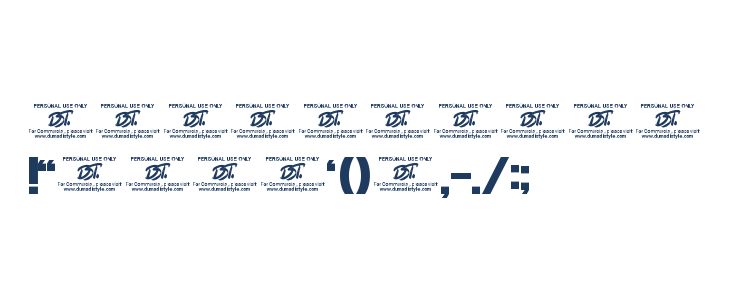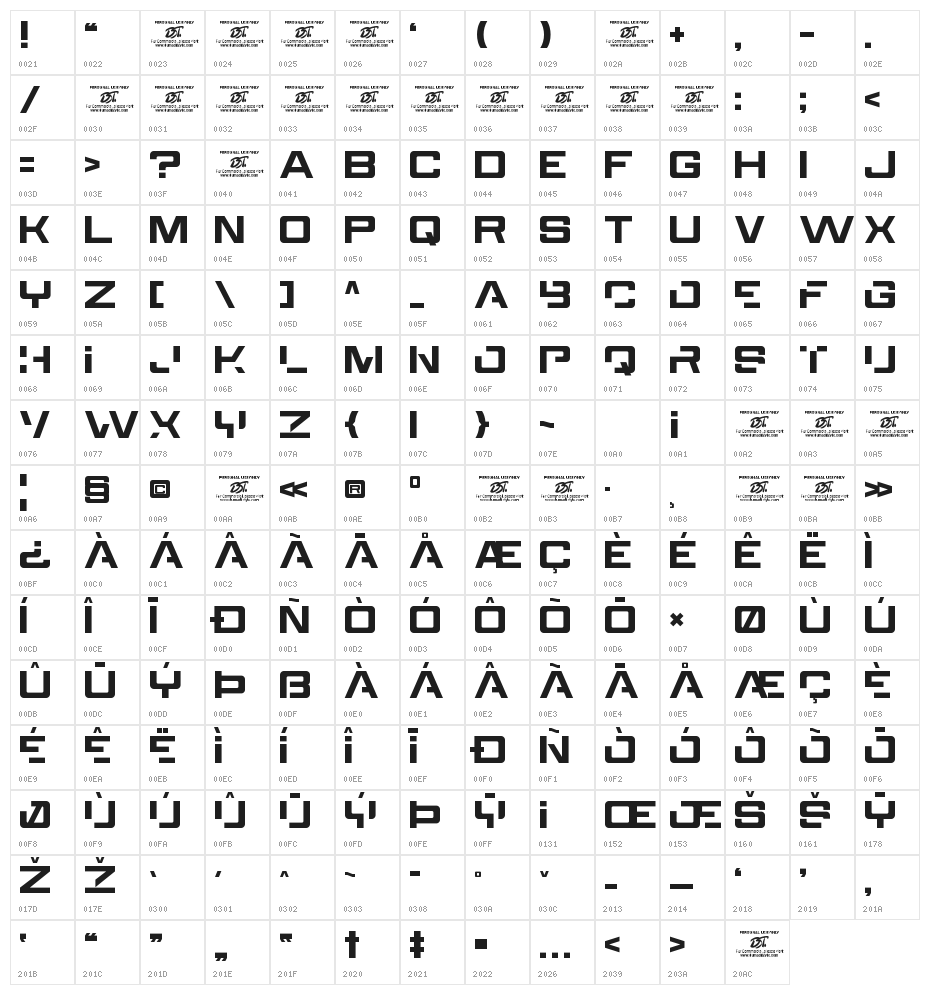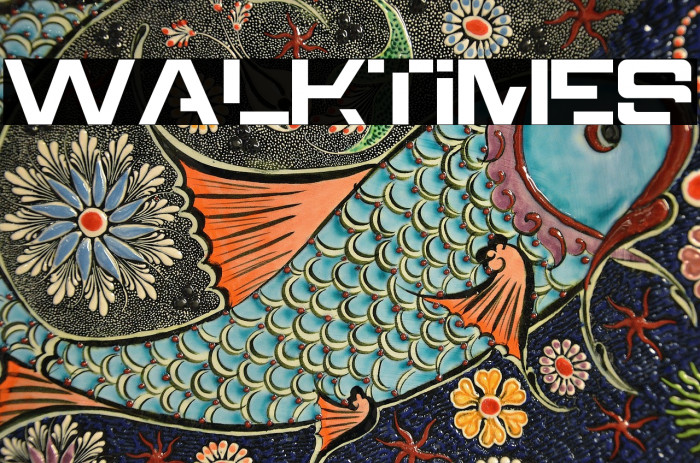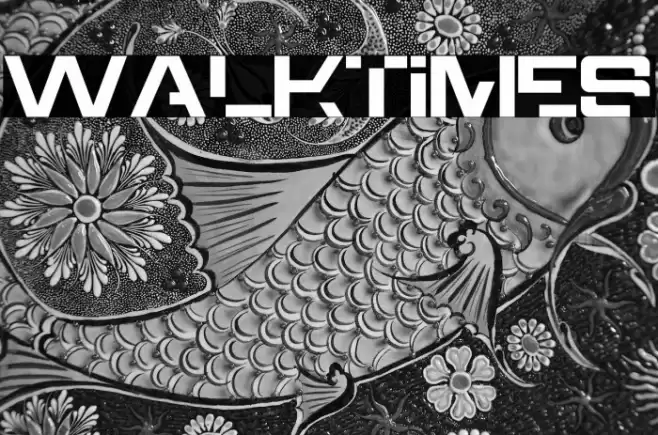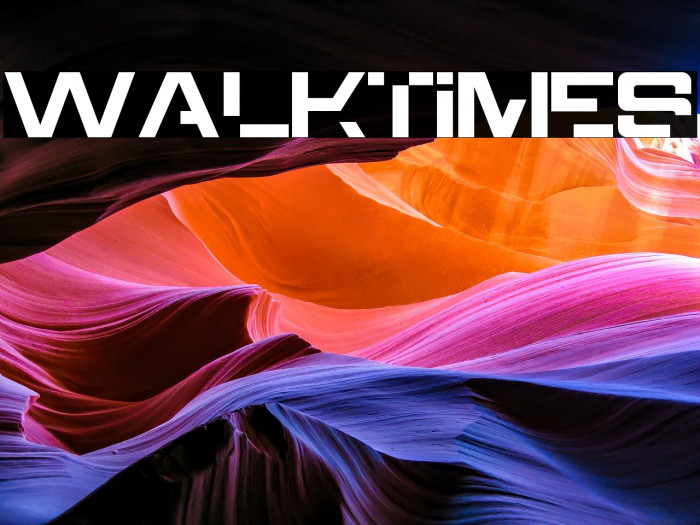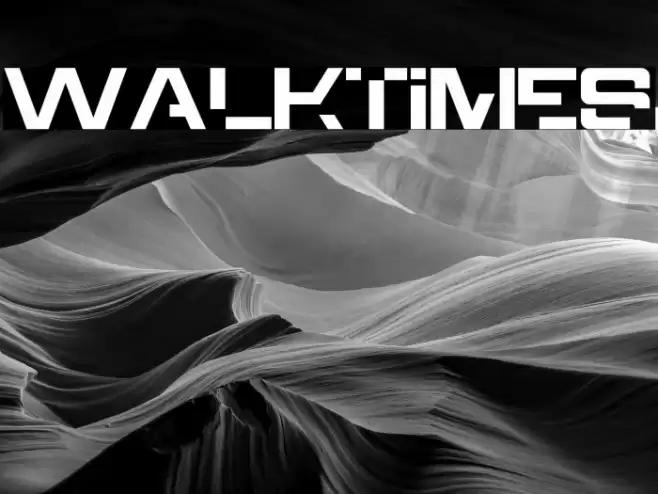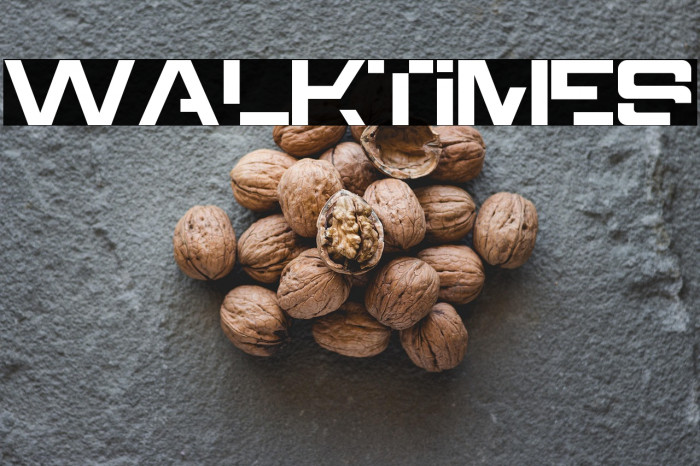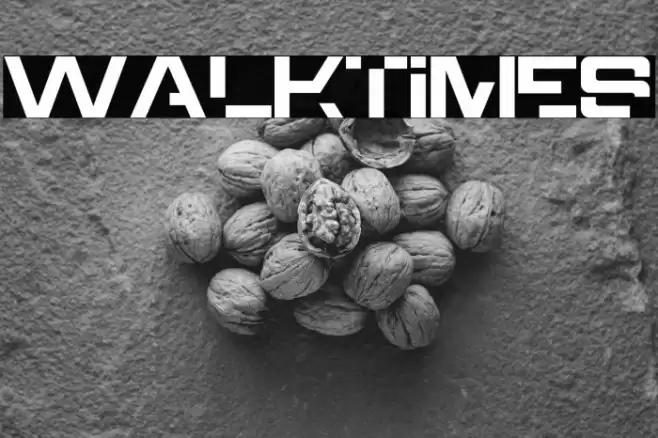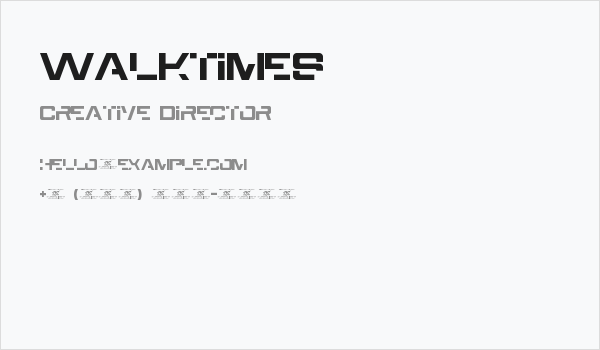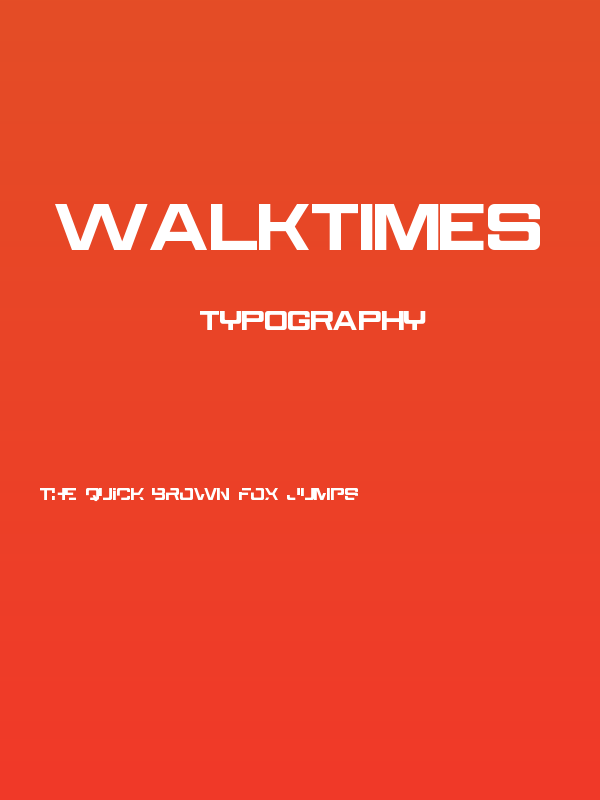
Walktimes Font
Walktimes Description
This font features a bold, geometric design with a futuristic and industrial feel. The characters are constructed with sharp angles and straight lines, creating a sense of precision and modernity. The uppercase letters are particularly striking, with a uniform height and width that contribute to a cohesive appearance. The lowercase letters maintain the same angular style, ensuring consistency across the typeface. The numerals and special characters are designed to match the overall aesthetic, making this font suitable for a variety of applications where a strong, impactful look is desired.